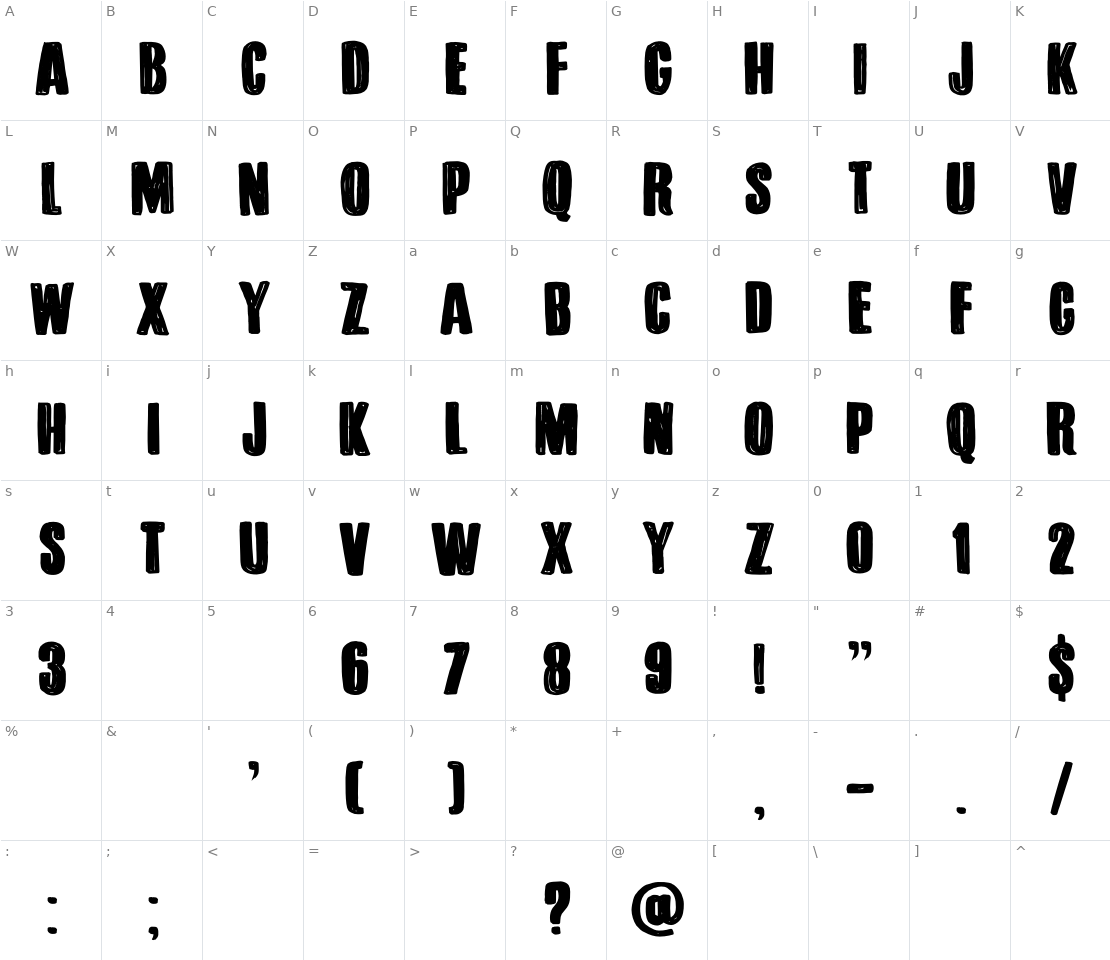
DK Bitumen
DK Bitumen is a bold, condensed display face from Hanoded with a heavily distressed surface that gives every letter a gritty, worn-down texture. The rough edges and dense weight make it feel like type that's been wheat-pasted to a concrete wall and left to weather. Built for posters, album art, and headlines where you want something that reads as loud and unapologetically raw.